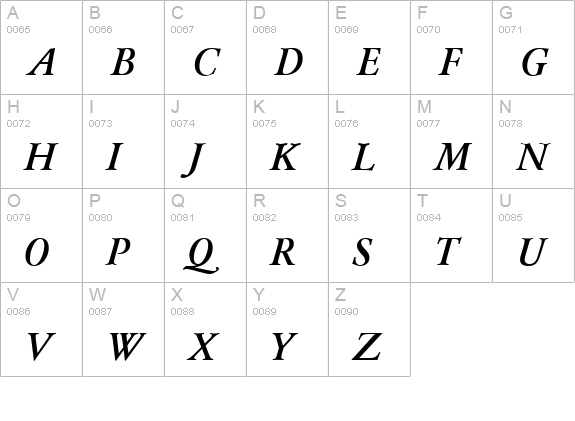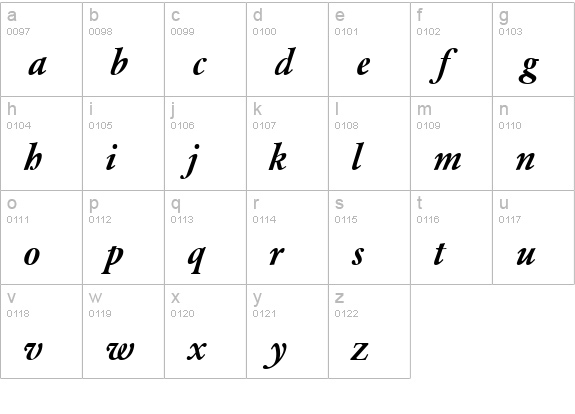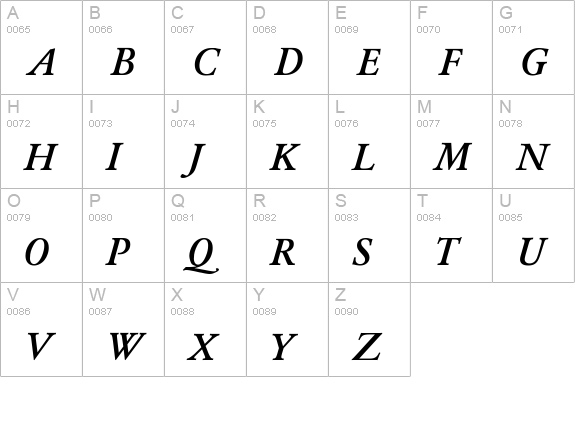
QTGaromand Bold Italic Font Details
QTGaromand Bold Italic is a strong, high-contrast, italic variant in the QTGaromand typeface family \xE2\x80\x94 well suited to headlines, attention-grabbing titles, and strong calls-to-action.
Introducing QTGaromand Bold Italic, a stunning and versatile font that effortlessly combines boldness and elegance. This font is the epitome of sophistication, with its unique blend of strong, confident lines and delicate, italicized curves. Whether used for headlines, titles, or branding, QTGaromand Bold Italic commands attention and leaves a lasting impression. The beauty of QTGaromand Bold Italic lies not only in its impeccable design but also in its accessibility. This remarkable font is available to you free of charge, allowing you to enhance your creative projects without any financial constraints. It is a font that truly believes in the power of self-expression and aims to provide everyone with the opportunity to communicate their message with style and flair. To access this exceptional font, simply visit FontsMarket.com, where you can freely download QTGaromand Bold Italic and explore its various weights and styles. FontsMarket.com is renowned for its vast collection of high-quality fonts, catering to the diverse needs of designers, artists, and creatives across the globe. With just a few clicks, you can unlock the potential of QTGaromand Bold Italic and elevate your designs to new heights. Don't miss out on this incredible opportunity to add QTGaromand Bold Italic to your font library. Its seamless combination of boldness and italics will bring a touch of sophistication to any project, whether it's a logo, advertisement, or website. Embrace the freedom of expression and download QTGaromand Bold Italic today, and let your creativity soar.